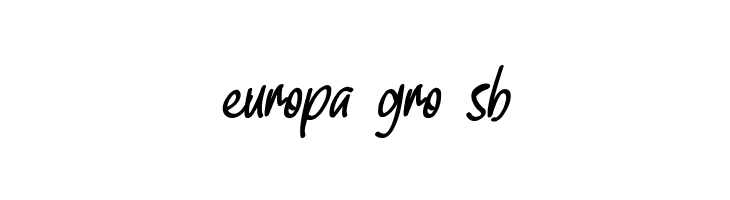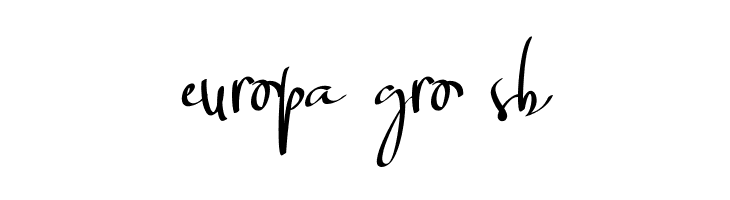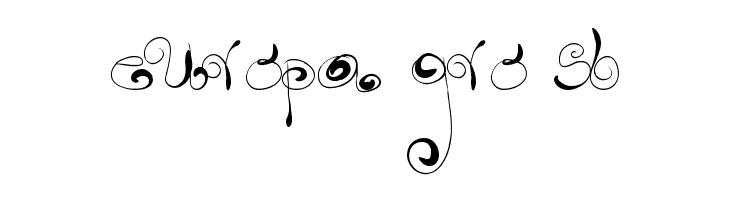
A decorative, cursive script font with a flowing, handwritten style.
A decorative font featuring intricate, tribal-inspired glyphs of animals and mythical creatures.
A jagged, edgy font with sharp, irregular strokes and a hand-drawn feel.
A bold, jagged font with a heavy metal aesthetic and dynamic, aggressive style.
A bold, angular font with a dynamic, forward-leaning style.
A bold, textured font with a vintage, handcrafted feel.
A lively, expressive handwritten font with fluid strokes and dynamic movement.
A whimsical, curly font with playful loops and flourishes.
A fluid and elegant handwritten script font with a dynamic flow.